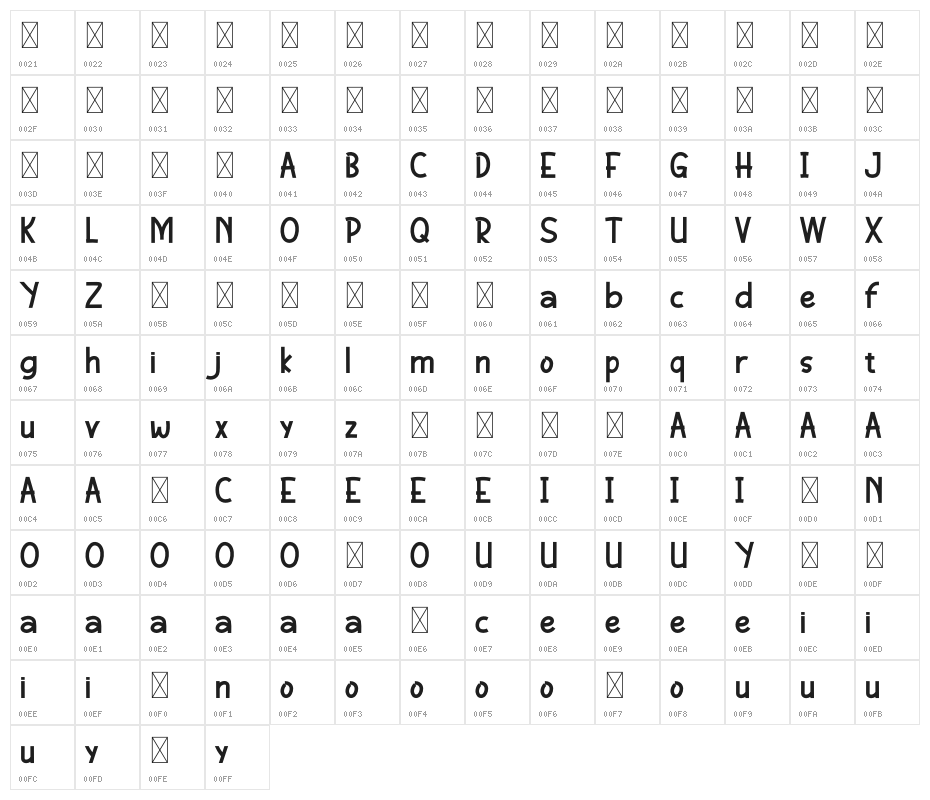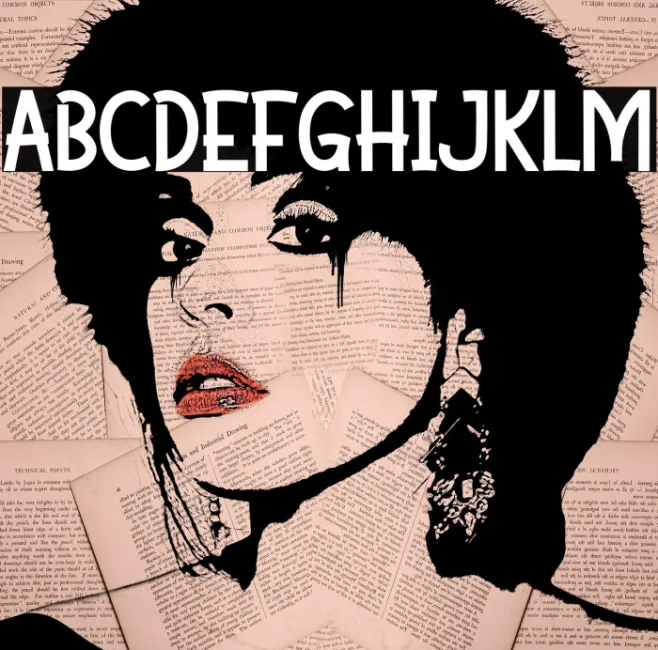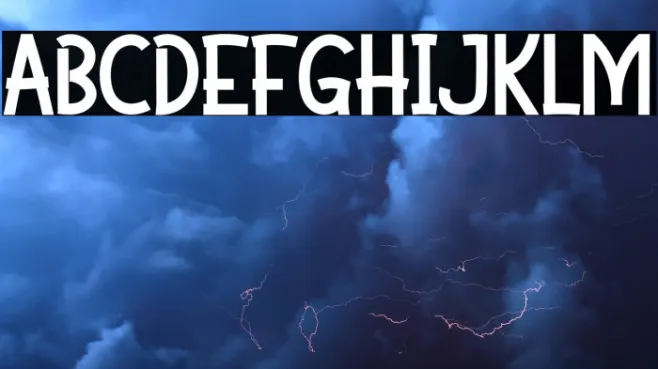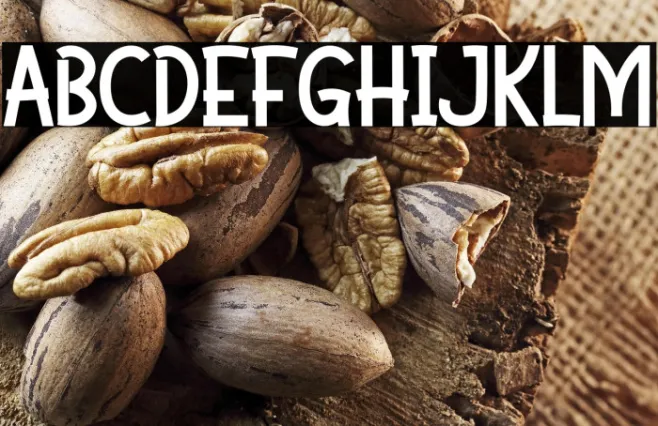
Game Bost Font
Game Bost Description
This font features a bold and playful design, characterized by its thick strokes and slightly irregular shapes. The uppercase letters have a strong presence with a unique flair, while the lowercase letters maintain a consistent style that complements the uppercase. The overall appearance is dynamic and eye-catching, making it suitable for projects that require a lively and engaging typeface. The font lacks traditional serifs, giving it a modern and clean look. Its boldness ensures readability, even at smaller sizes, while the distinctive character shapes add personality and charm.
| Overall Style | Playful, Modern |
| Proposed Projects | Ideal for children's books, playful branding, posters, and game design. |